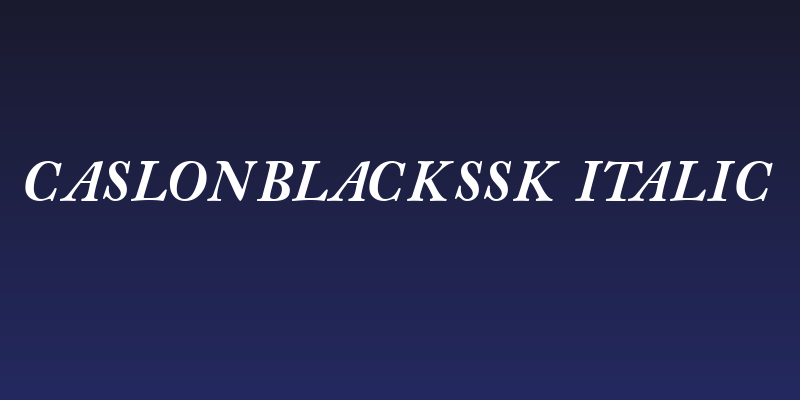
CaslonBlackSSK Italic Font
CaslonBlackSSK Italic Description
This font exhibits a classic and elegant style with a distinct italic slant, giving it a sophisticated and timeless appearance. The serif design features smooth curves and sharp edges, providing a balanced contrast between thick and thin strokes. The uppercase letters are bold and commanding, while the lowercase letters maintain a graceful flow. The numerals are clear and well-defined, ensuring readability. Special characters are crafted with attention to detail, enhancing the font's versatility. This font's overall aesthetic is both traditional and refined, making it suitable for a variety of formal applications.
| Proposed Projects | Ideal for formal invitations, book covers, branding, and editorial design. |